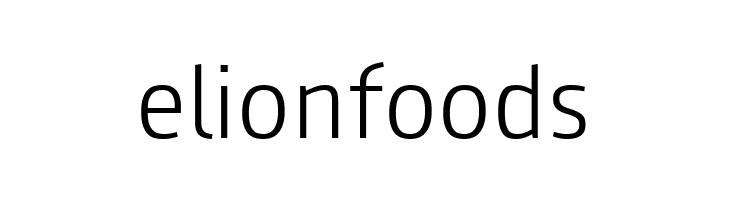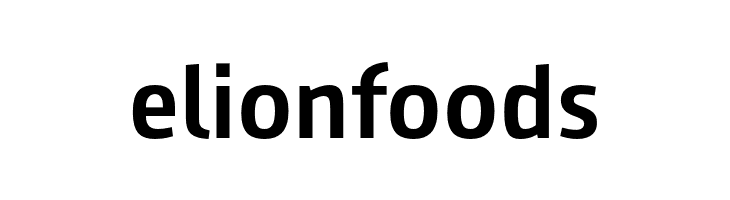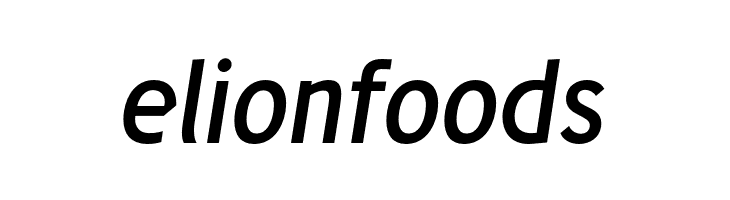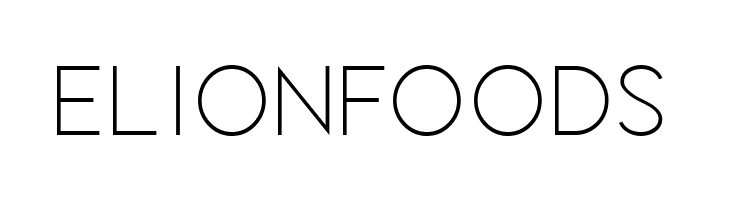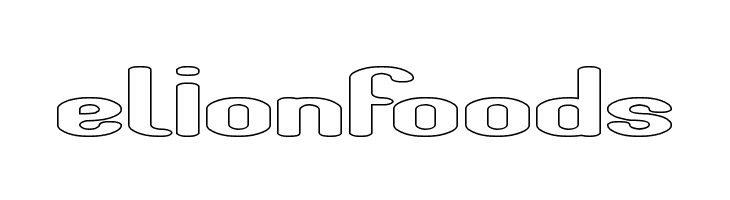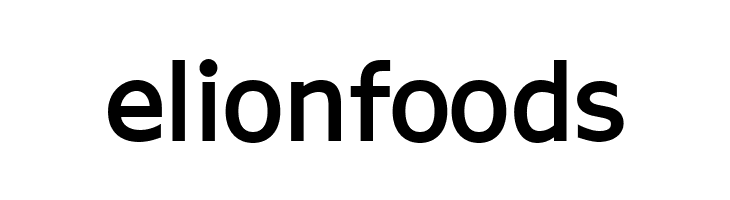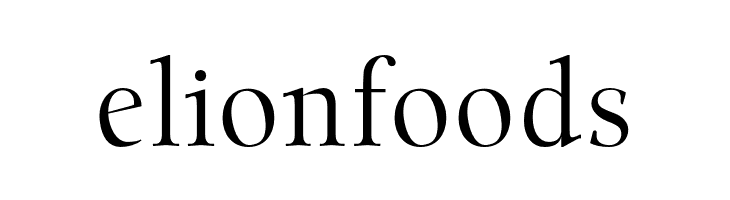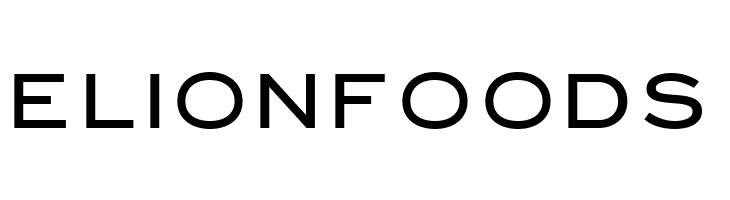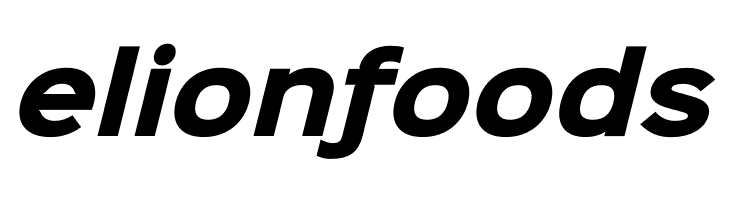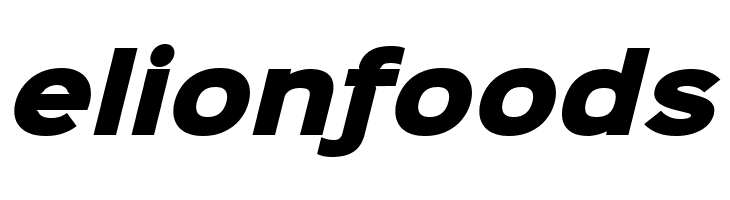
( ingoFonts - Ingo Zimmermann - www.ingofonts.com )
A modern, light sans-serif font with clean lines and balanced proportions.
( ingoFonts - Ingo Zimmermann - www.ingofonts.com )
A modern sans-serif font with clean lines and balanced proportions.
( ingoFonts - Ingo Zimmermann - www.ingofonts.com )
A modern, italic sans-serif font with clean lines and balanced proportions.
( mlkwsn - Malik Wisnu )
A playful, modern hollow font with rounded edges and consistent proportions.
( APH Products - www.aph.org/products/aphont.html )
A bold, modern sans-serif font with excellent readability and balanced proportions.
( DestockCoiff - www.destockcoiff.com )
A classic serif font with elegant proportions and refined details.
( HENRIavecunK )
A modern, geometric sans-serif font with balanced proportions.
( K-Type - www.k-type.com )
A bold, italicized sans-serif font with a modern and assertive style.
( K-Type - www.k-type.com )
A bold, italicized sans-serif font with a modern and impactful design.